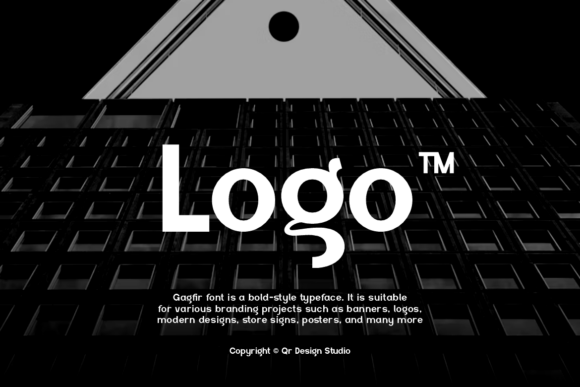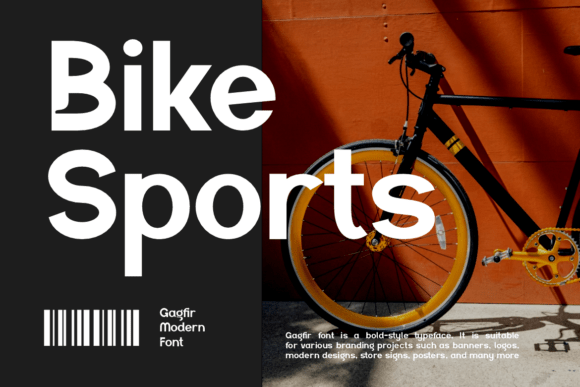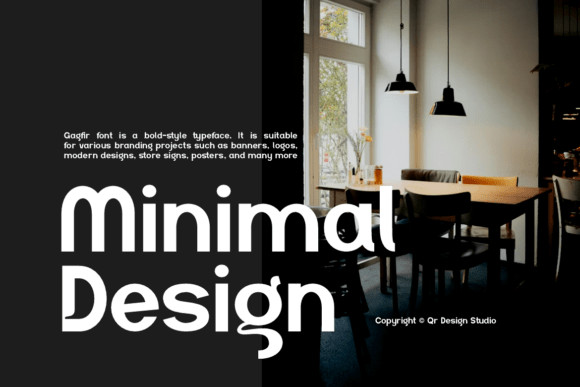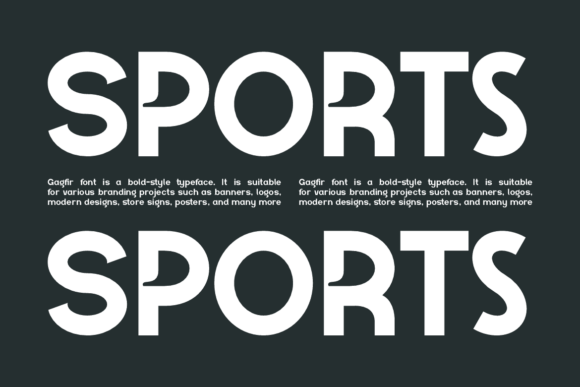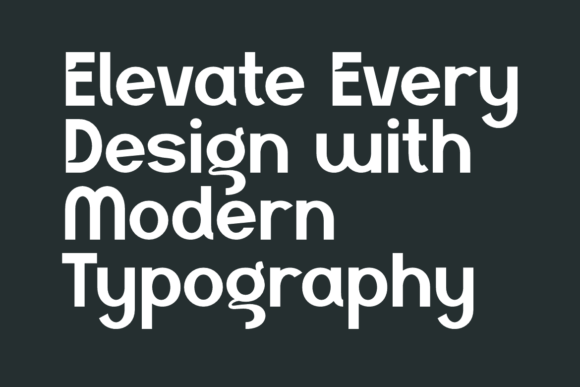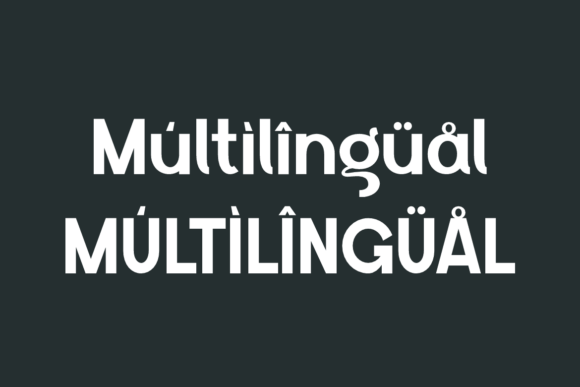
Introduction to Gagfir Font Font
Fonts play a crucial role in design, and the Gagfir Font font is a typeface that brings both character and versatility to any project. Whether you’re working on a branding project, a website, or a print design, the Gagfir Font font offers a unique style that can elevate your work.
Gagfir Font is a bold and authentic display typeface.
Itβs perfect for various branding projects such as logos, sports designs, and more This font stands out beautifully in a wide range of contexts.
Key Features of Gagfir Font Font
Why Choose Gagfir Font Font?
The Gagfir Font font is more than just a typeface β it’s a design tool that helps you communicate your message with style and clarity. Its unique character set and versatile design make it suitable for a wide range of applications, from elegant invitations to bold headlines.
With its carefully crafted letterforms and balanced proportions, the Gagfir Font font ensures readability and visual appeal across all mediums.
What makes Gagfir Font font special?
The Gagfir Font font stands out with its unique design, exceptional readability, and versatility across various design applications.